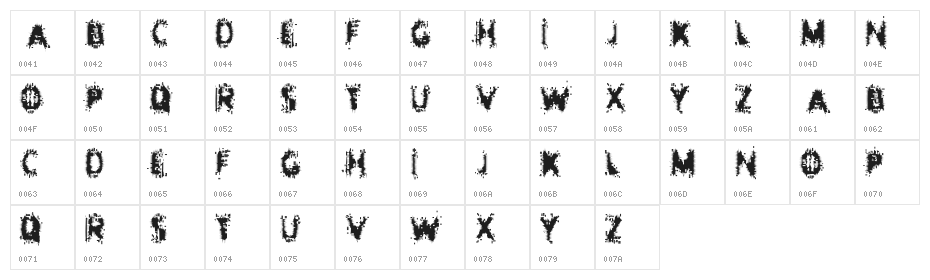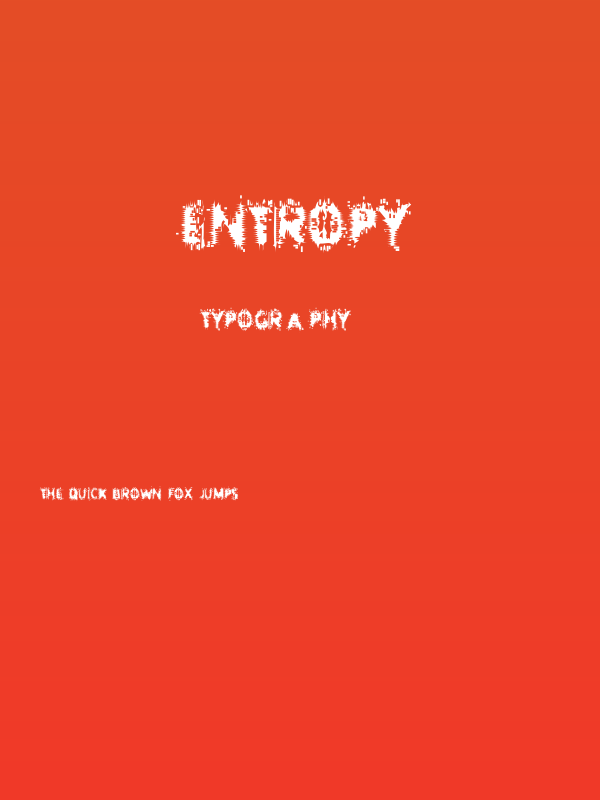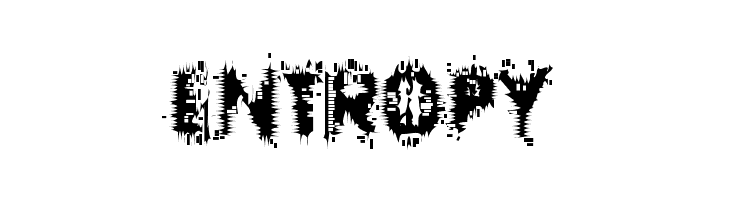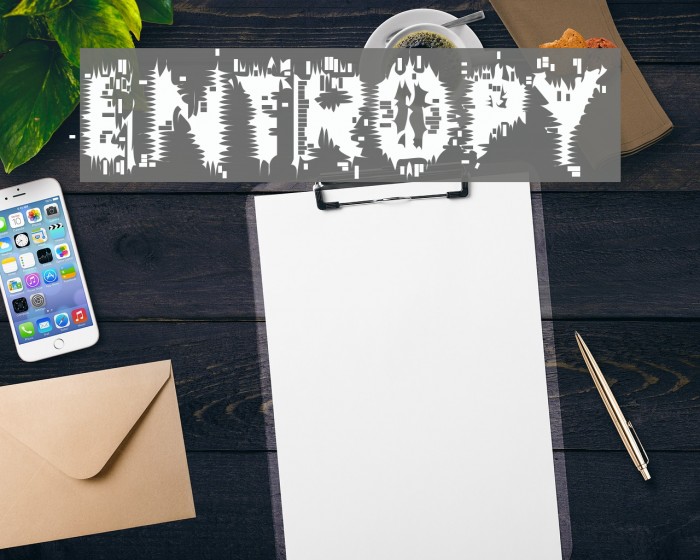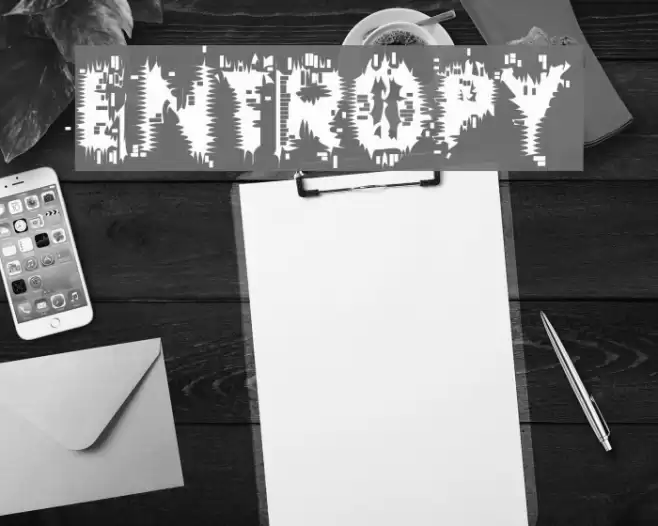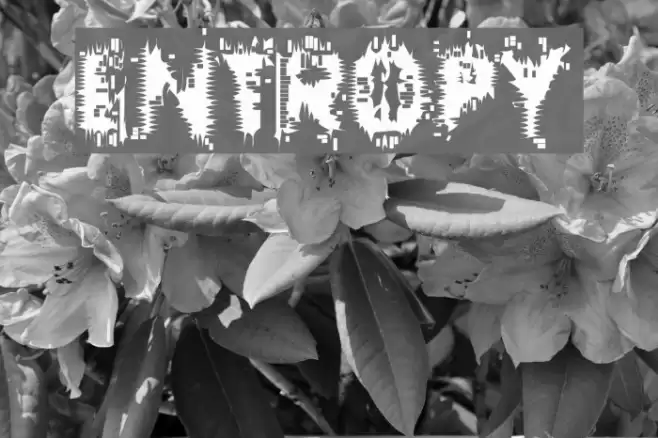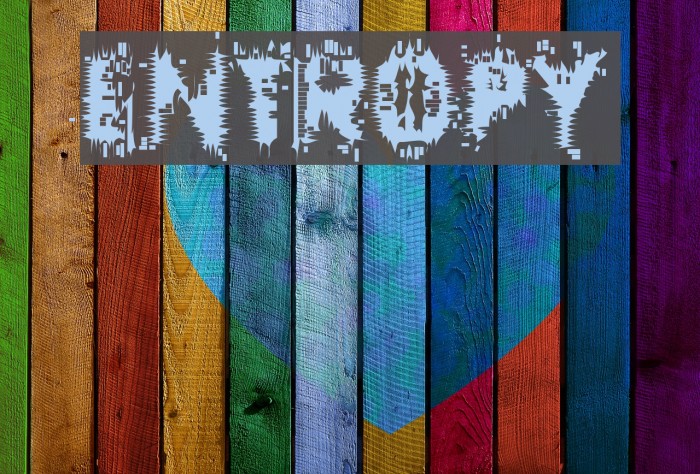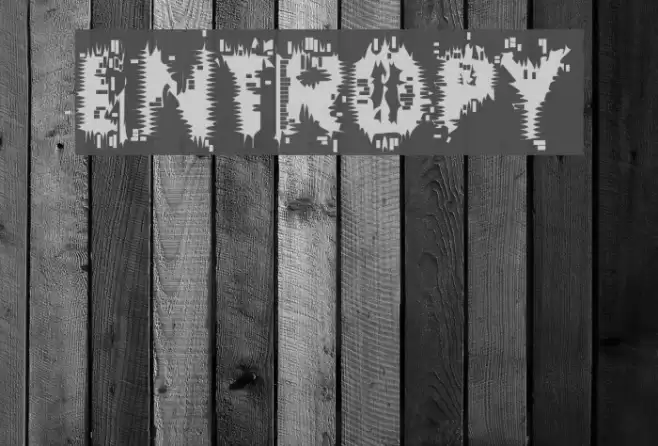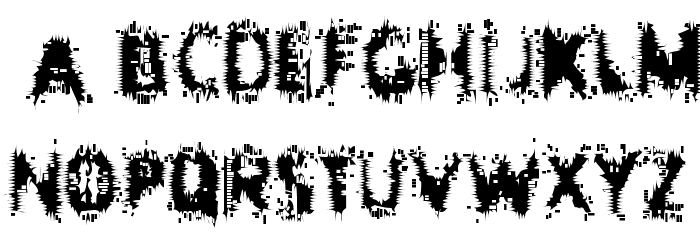
Entropy Font
This font features a highly distressed and chaotic design, with each character appearing as if it's been eroded or fragmented. The edges are jagged and irregular, giving a sense of movement and energy. The uppercase and lowercase letters maintain a consistent height, but the distortion varies, creating a dynamic visual effect. The numerals and special characters follow the same pattern, ensuring uniformity across the set. This font is ideal for projects that require a bold statement or an edgy, unconventional look.
| Proposed Projects | Album covers, horror movie posters, edgy branding, or any design needing a bold, unconventional look. |